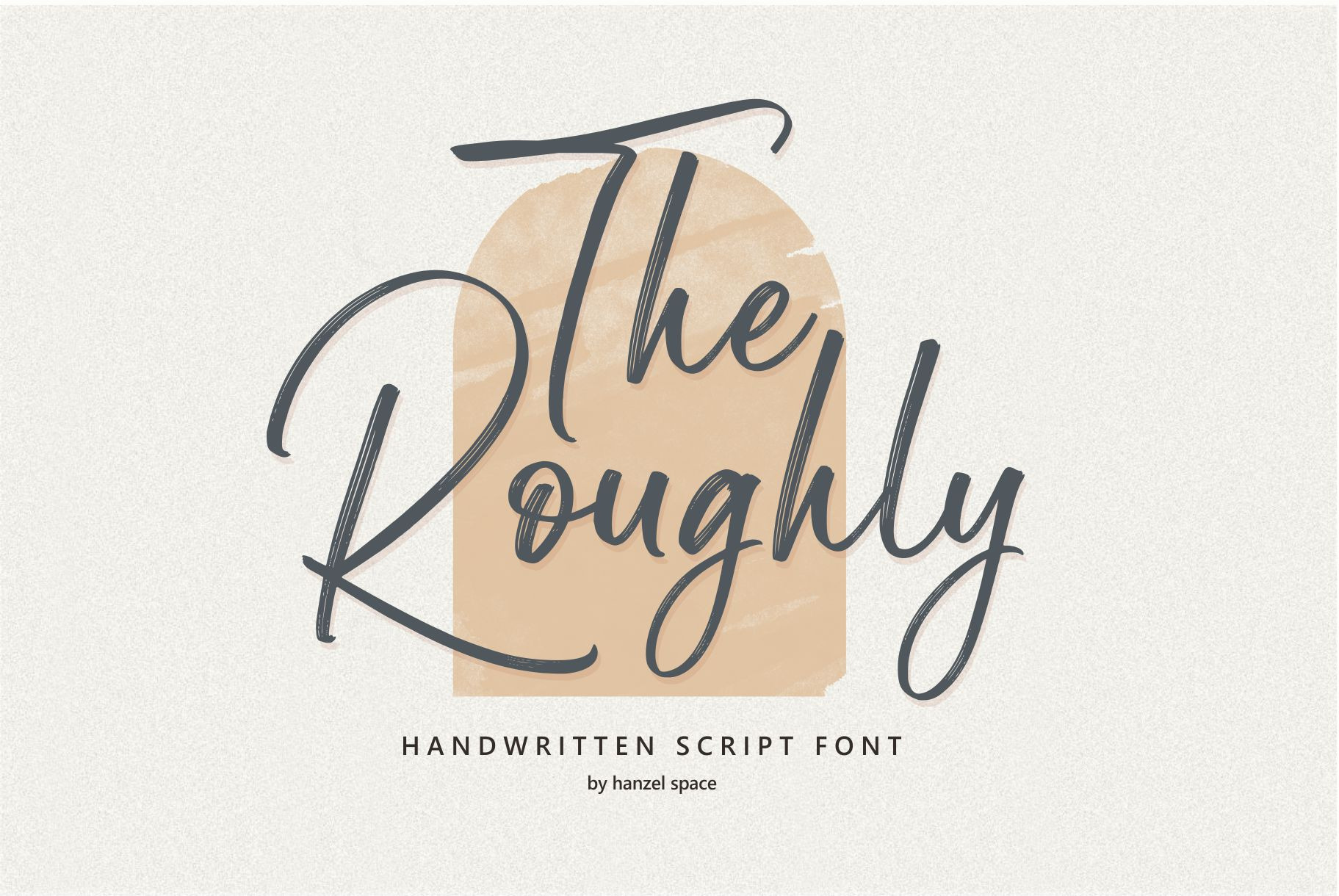
Welcome to The Roughly. This font takes me back to why I personally fell in love with handlettering - messy and bold handwritten quotes that transform words of inspiration into beautiful visual pieces. In addition to quotes and prints, The Roughly would be ideal for logos and headings.